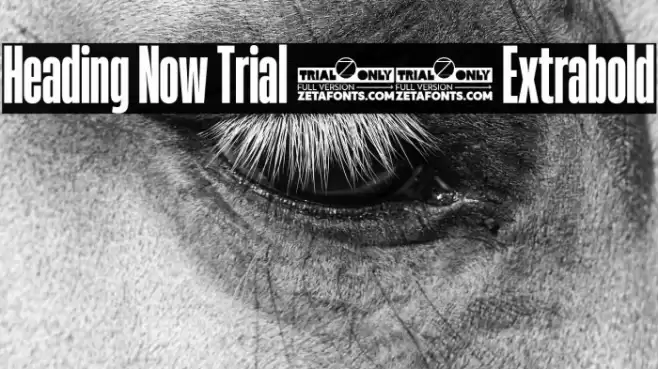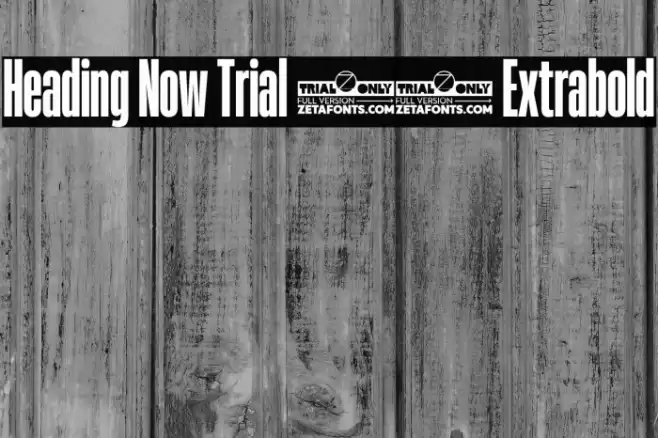
Heading Now Trial 27 Extrabold Font
Heading Now Trial 27 Extrabold Description
This font features a bold and impactful design with a strong presence, characterized by its thick strokes and condensed letterforms. The uppercase and lowercase letters maintain a consistent weight, emphasizing a uniform and cohesive appearance. The font's structure is clean and modern, making it suitable for attention-grabbing headlines and titles. Its condensed width allows for efficient use of space, making it ideal for designs where space is limited. The special characters are designed to match the boldness of the alphabet, ensuring a harmonious look across all text elements.
A bold, condensed font perfect for impactful headlines and titles from Regular fonts.
- Proposed Projects: Ideal for advertising, posters, branding, and any project requiring a strong visual impact.
- Character Spacing: Tight